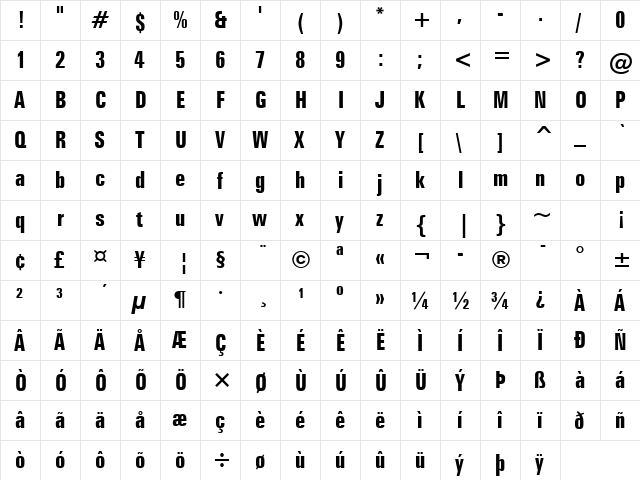
Zurich Bold
Design Context for Zurich Typeface
Zurich is a composed and adaptable typeface that performs quietly and consistently across a wide range of design contexts. Its bold stroke weight gives it real presence on the page.
Pro Tip: Pair Zurich with a font of contrasting weight or personality to build a more expressive typographic hierarchy.